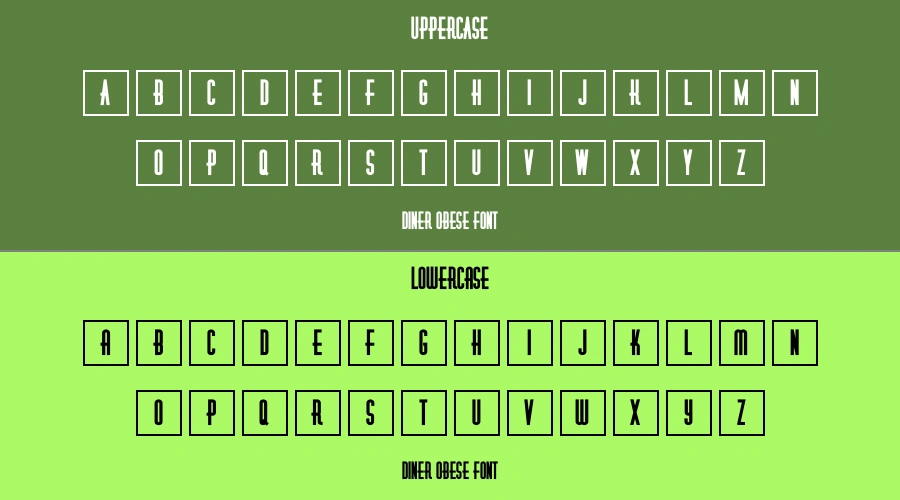
About Diner Obese Font
When typographic excellence matters most, Diner Obese Font delivers through its thoughtful blend of artistic freedom and functional clarity. Specially crafted for newspaper text, it offers the elegance and technical excellence required for sophisticated design work. Every detail serves a purpose.
The character set showcases thoughtful details like clean lines alongside functional stylistic alternates. This proves especially valuable in packaging, where file optimization directly influences results. Particular attention was paid to proportion and contemporary relevance during development.